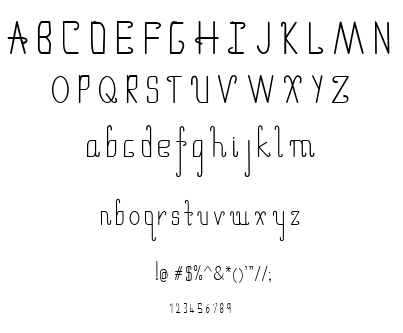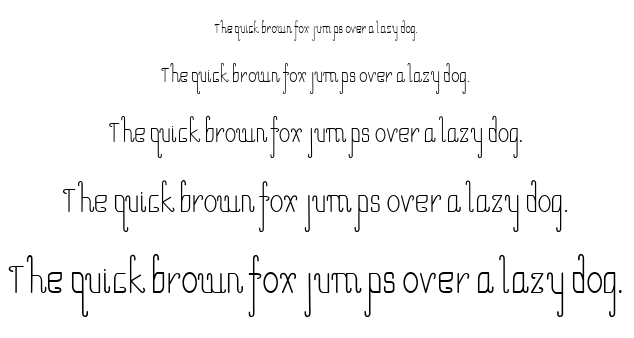
This font has curvy ends like an umbrella stick has on which its name is kept. This font can be used for many things such as for shops logos,calendars etc.